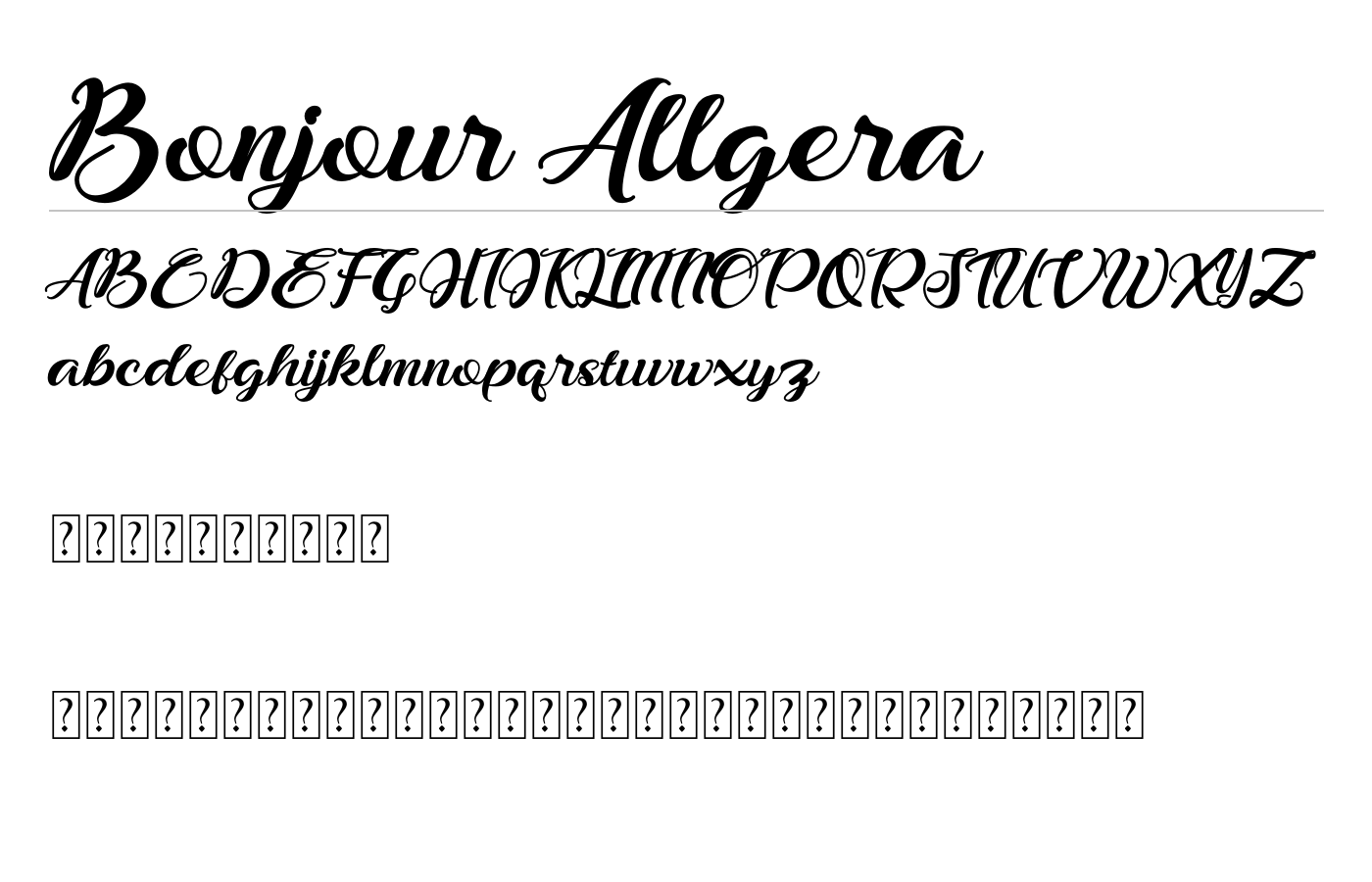
Bonjour Allgera is an elegant script font characterized by smooth, flowing strokes and moderate weight, offering a refined, handwritten feel. Its high contrast and graceful curves make it perfect for luxury branding, invitations, and stylish headlines where a touch of sophistication and personality is desired. This font’s fluid letterforms convey warmth and charm, ideal for designs aiming to evoke classic elegance with a modern twist.
Bonjour Allgera Font
About Bonjour Allgera Font
| Font family | Bonjour Allgera Font |
| Designer | E. Nurcahyo |